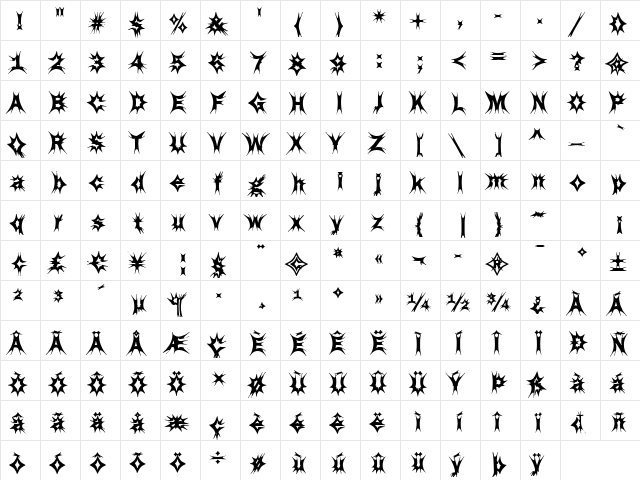
Funky34 Bold
Design Context for Funky34 Typeface
Funky34 trades formality for fun, with bouncy, characterful letterforms that bring warmth and energy to any project.
Font Pairing: Pairs well with a rounded or humanist sans for body copy, maintaining the friendly tone without relying on Funky34 to carry extended reading.
Pro Tip: Avoid using Funky34 for long passages of text — it works best for headlines, labels, and short calls to action.